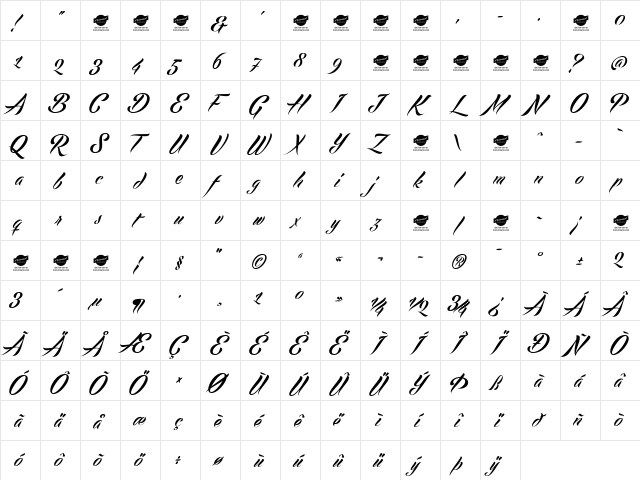
Echinos Park Script PERSONAL USE ONLY Regular Font Preview
Design Context for Echinos Park Script PERSONAL USE ONLY Typeface
Echinos Park Script PERSONAL USE ONLY flows with the natural rhythm of handwritten lettering, making it ideal for designs that call for warmth and personal expression.
Font Pairing: Combine Echinos Park Script PERSONAL USE ONLY with a simple geometric sans for maximum contrast — the tension between flowing curves and clean structure is a classic typographic pairing.
Pro Tip: Pair Echinos Park Script PERSONAL USE ONLY with a clean sans-serif for supporting text. The contrast between fluid script and geometric structure creates an elegant typographic hierarchy.